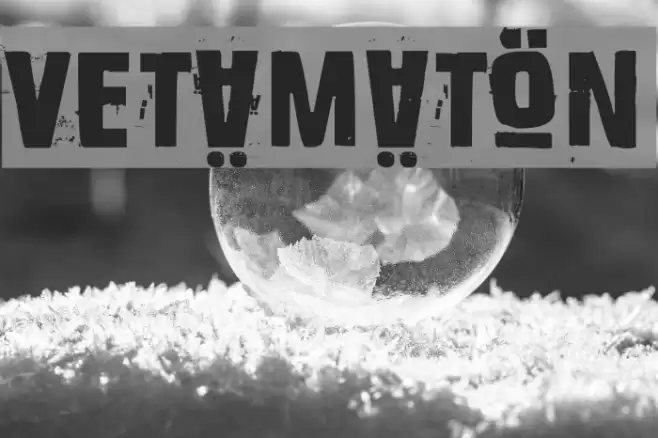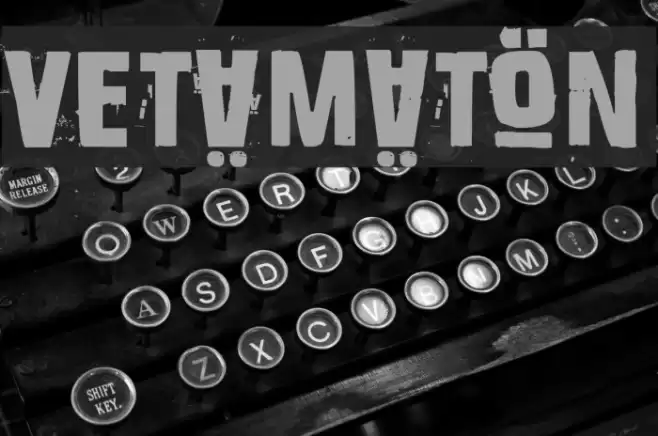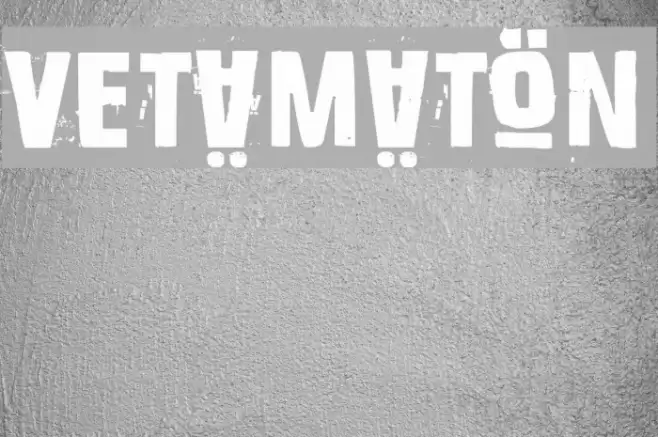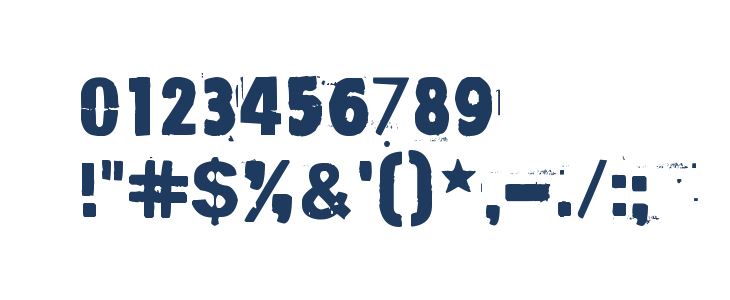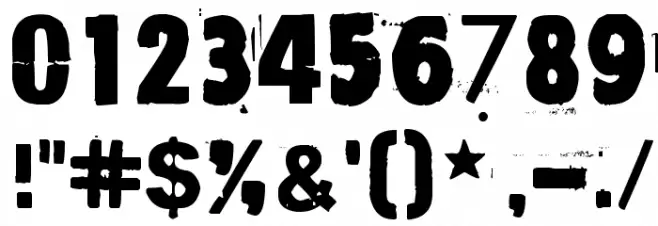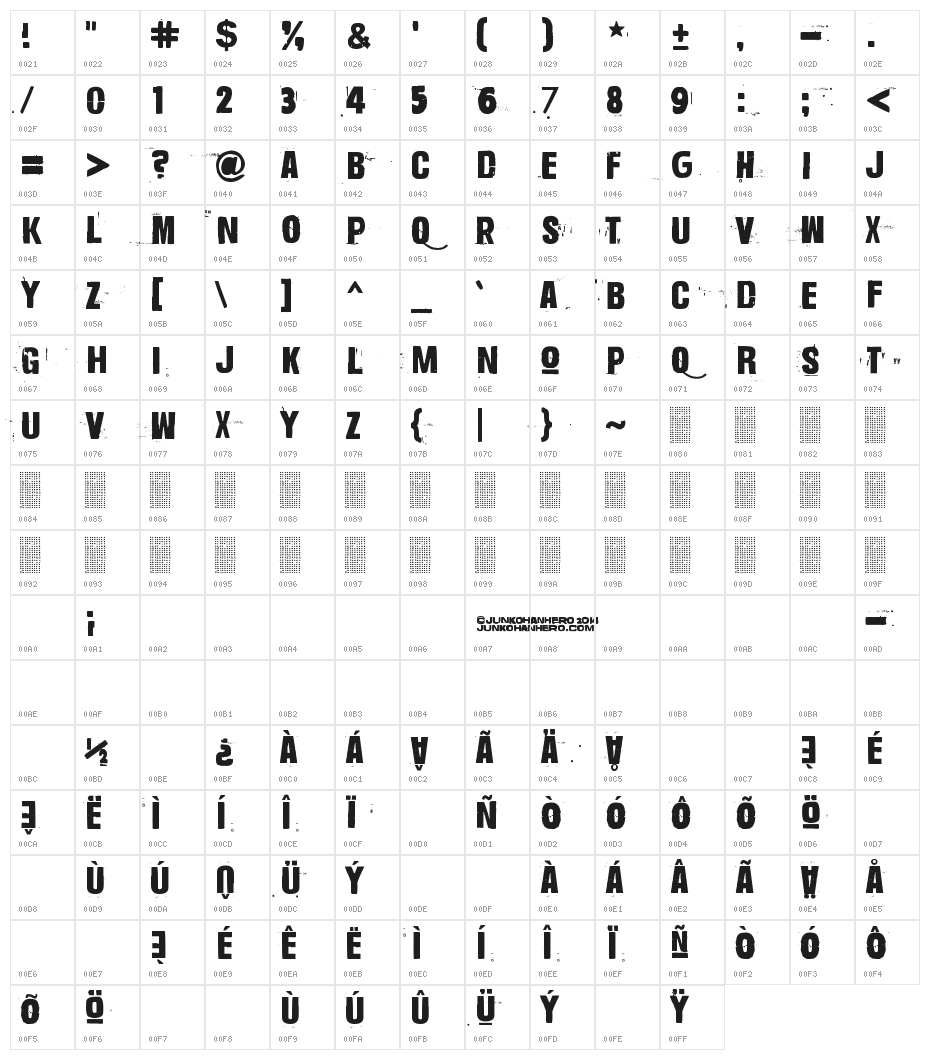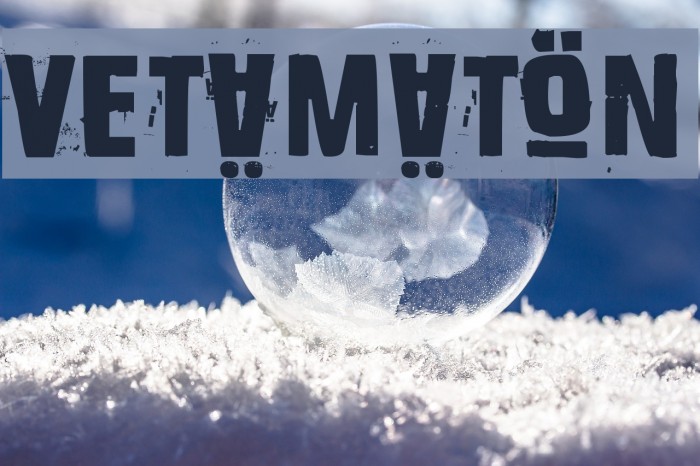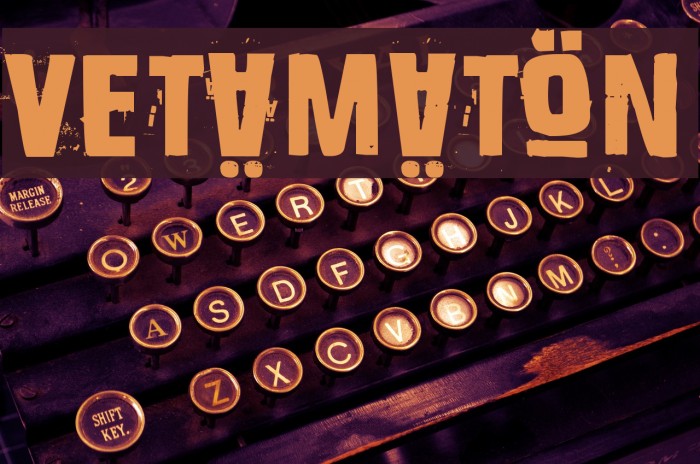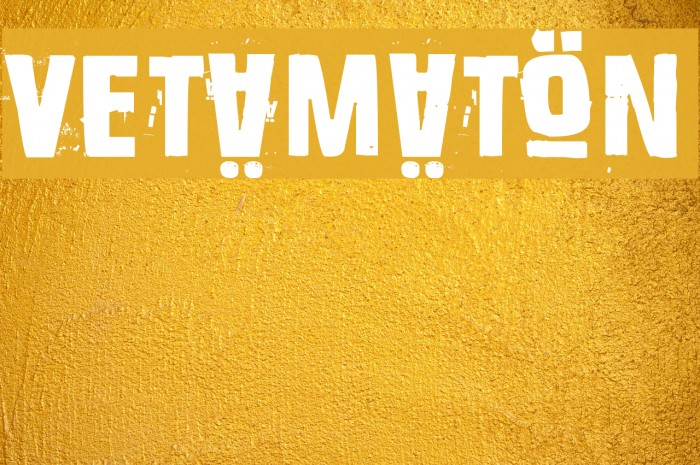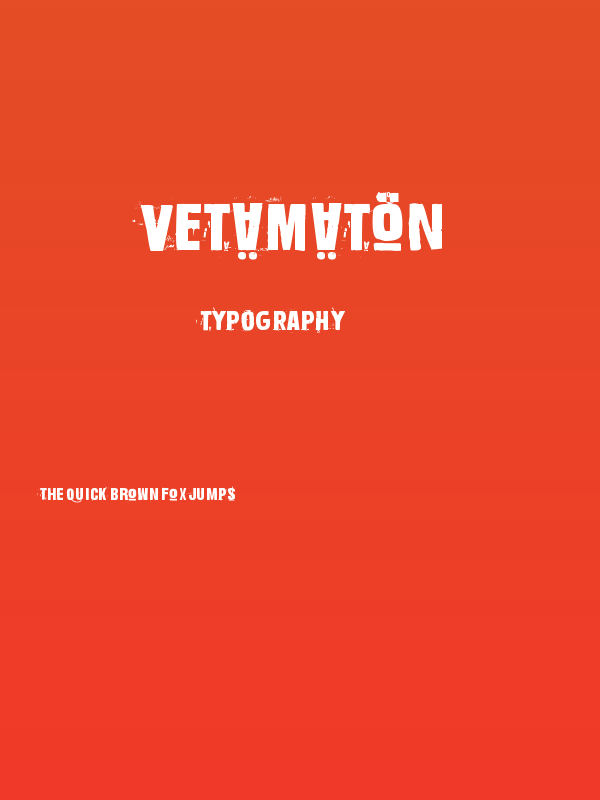
Vetämätön Font
Vetämätön Description
This font features a bold, distressed style with a rough, textured appearance that mimics the look of worn-out stencils or vintage printing. The uppercase letters are prominent and impactful, making them ideal for attention-grabbing designs. The numbers and special characters maintain the same rugged aesthetic, ensuring consistency across all text elements. The font's unique character is enhanced by its irregular edges and occasional gaps, adding to its authentic, weathered look. This style is reminiscent of industrial or military themes, often used to convey strength and durability.
A bold, distressed font with a rugged, vintage appearance from Distorted Eroded fonts.
- Proposed Projects: Ideal for projects requiring a strong, vintage aesthetic such as posters, album covers, branding for outdoor gear, or themed event invitations.
- Overall Style: Vintage